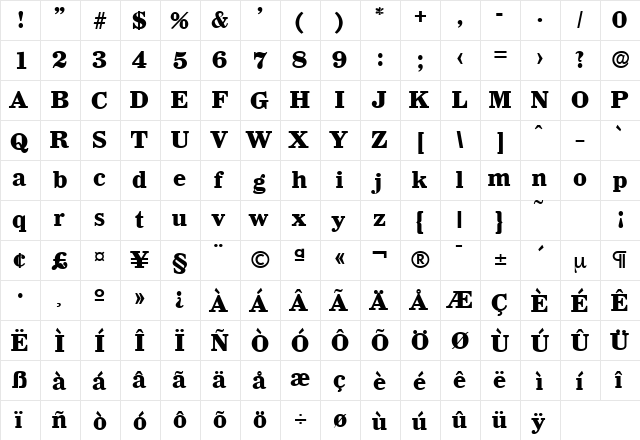
Wichita-Serial-ExtraBold Regular
Design Context for Wichita-Serial-ExtraBold Typeface
Wichita-Serial-ExtraBold offers clean, dependable letterforms without strong stylistic allegiance, making it a practical choice for designers who need flexibility. The heavy weight commands attention and anchors typographic hierarchies.